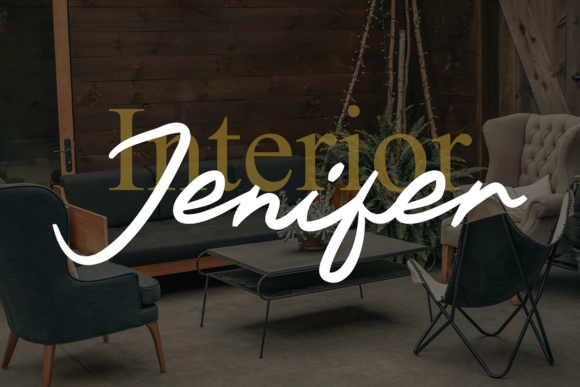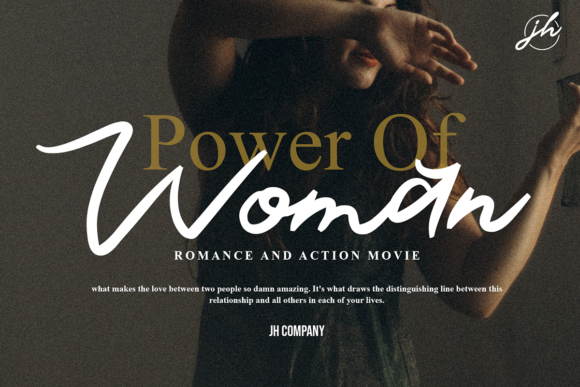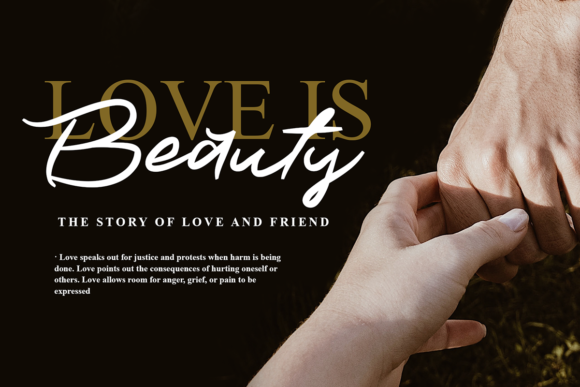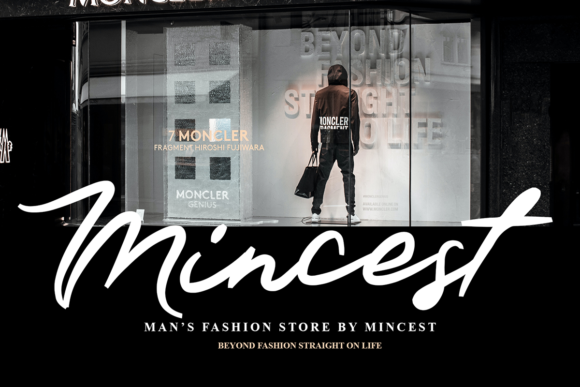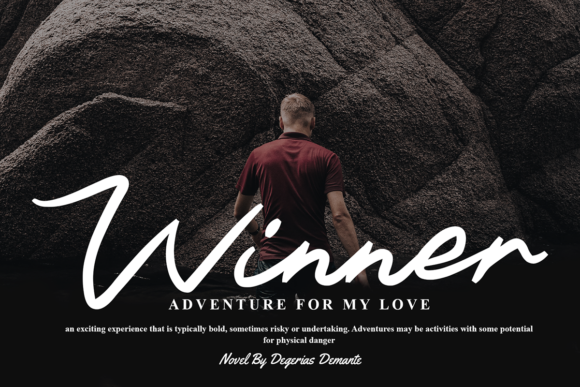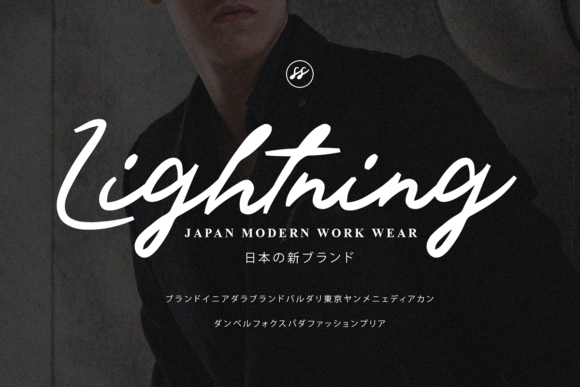
Introduction to Jonnienth Font
As a designer, there’s nothing quite like the rush of inspiration that hits when you stumble upon the perfect font for your project. It’s the moment when all the pieces fall into place, and your creative vision starts to take shape. For many, that moment came when they discovered the Jonnienth Font – a bold, handwritten font that’s perfect for logotypes, branding designs, and so much more.
With its high-quality design and transparent background, the Jonnienth Font is a valuable resource for designers looking to add a touch of creativity to their projects. Whether you’re working on a digital lettering art, designing a t-shirt, or creating a poster, this font is sure to make your work stand out. And the best part? It’s available for free download, making it an accessible design resource for designers of all levels.
- High-quality design: The Jonnienth Font is a unique and creative design resource ideal for various projects, including branding, advertising, and digital art.
- Perfect for creative projects: The Jonnienth Font is ideal for designers, artists, and writers working on creative projects, such as novels, comics, and graphic novels.
Honest Review: Jonnienth Font
I recently stumbled upon the Jonnienth Font and was immediately drawn in by its unique and quirky design. This free download has become a valuable addition to my design resource library, offering a high-quality option for my creative projects.
What works well is the Jonnienth Font’s versatility – it can be used for a wide range of design styles, from modern to vintage. The font also features a transparent background, making it easy to layer and manipulate in my designs.
Some of the key features of the Jonnienth Font include:
- Unique and creative design
- High-quality typography
While the Jonnienth Font is an excellent addition to any designer’s library, I do have a few minor complaints:
- ⚠️ Limited character set – it would be great to see more glyphs and characters added in the future.
- ⚠️ Not ideal for body text – the font is best used for headings and titles.
Overall, I’m thoroughly impressed with the Jonnienth Font and would highly recommend it to any designer looking for a unique and high-quality design resource.
Tips for Getting the Most Out of Jonnienth Font
To get the most out of the Jonnienth Font, experiment with different font sizes, colors, and combinations. You can also use the font in conjunction with other design elements, such as graphics and images, to create a visually appealing design. Remember to save your design as a high-quality file to ensure that the font looks its best.
The Jonnienth Font is a great resource for designers who need a unique and creative font for their projects. It’s perfect for use in branding, marketing materials, and other design projects where a high-quality font is essential. Whether you’re working on a small project or a large-scale design initiative, the Jonnienth Font is a valuable design resource that’s sure to deliver professional results.